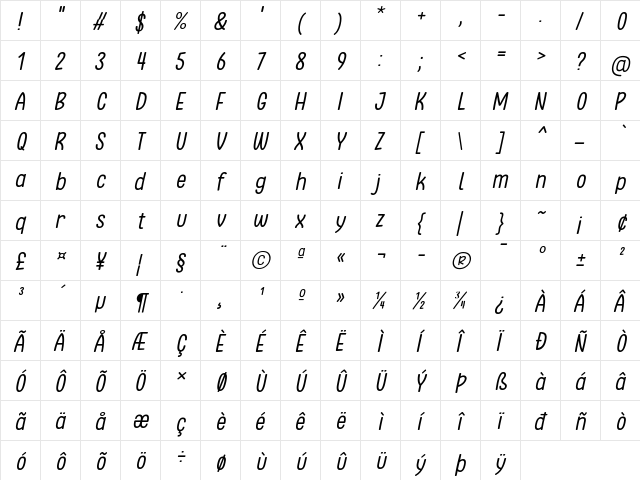
Clambake October Six Italic
| Foundry | 7NTypes |
| Designer | Situjuh Nazara |
Design Context for Clambake October Six Typeface
Clambake October Six takes a measured approach to typography — its balanced proportions and neutral character make it a reliable workhorse for both digital and print work. The slanted form adds forward momentum and visual energy.